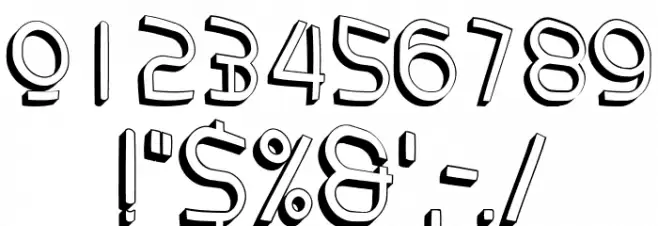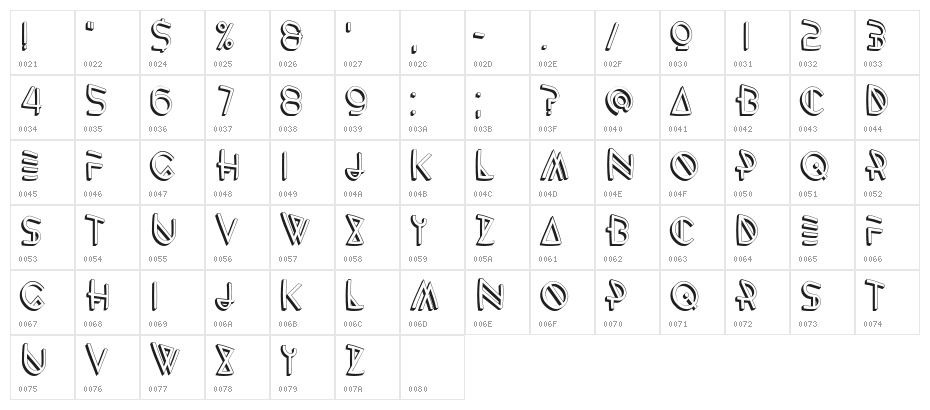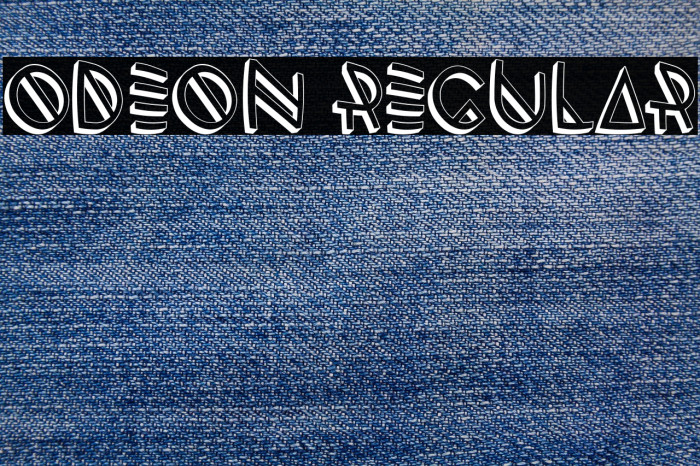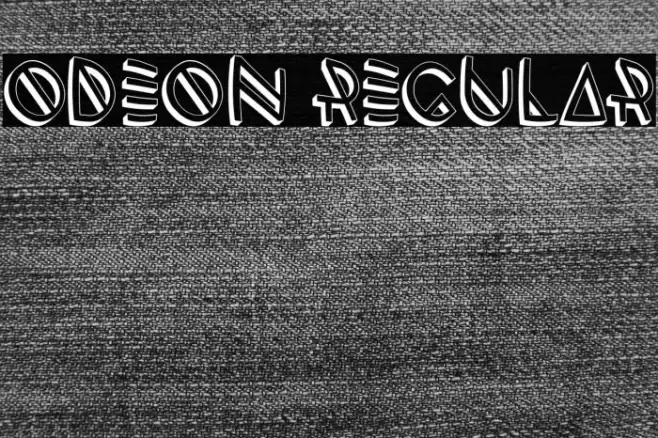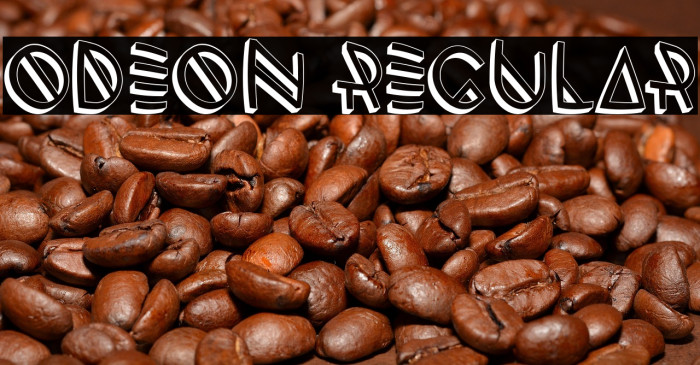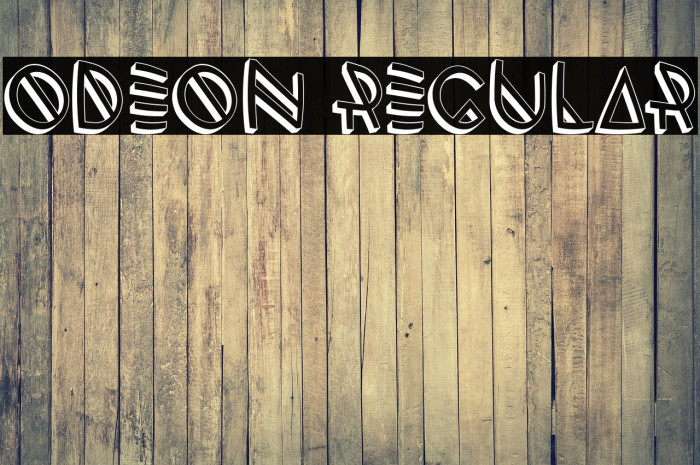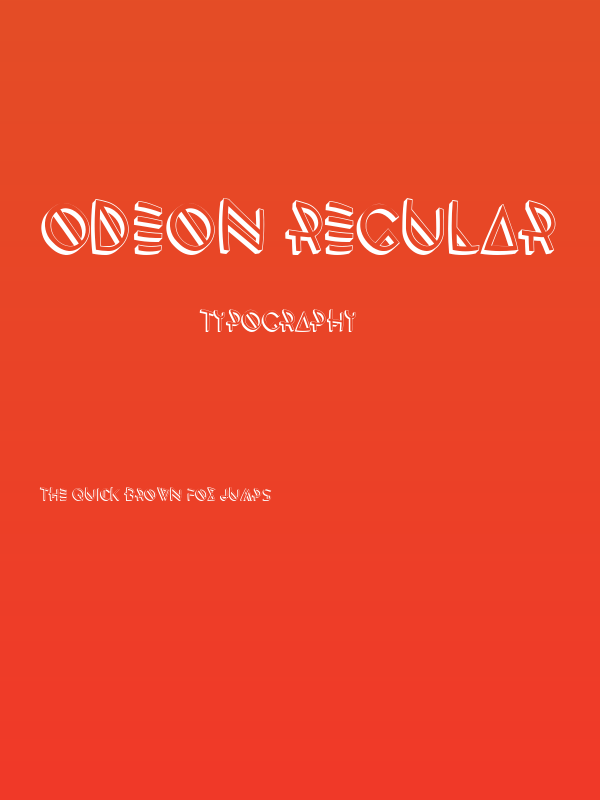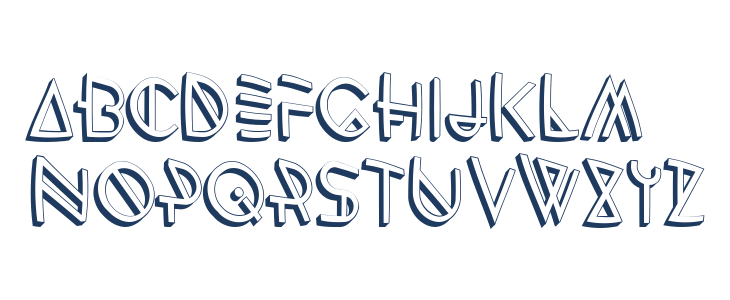
Odeon Regular Font
Odeon Regular Description
This font features a bold, geometric style with a three-dimensional effect created by shadowing. The characters are constructed with clean, angular lines and a distinct outline that adds depth. The uppercase letters are particularly striking, with a futuristic and dynamic appearance. The numbers and special characters maintain this bold, structured look, ensuring consistency across the typeface. The design is both modern and playful, making it suitable for eye-catching displays.
| Proposed Projects | Ideal for posters, logos, and branding materials that require a modern and dynamic look. |